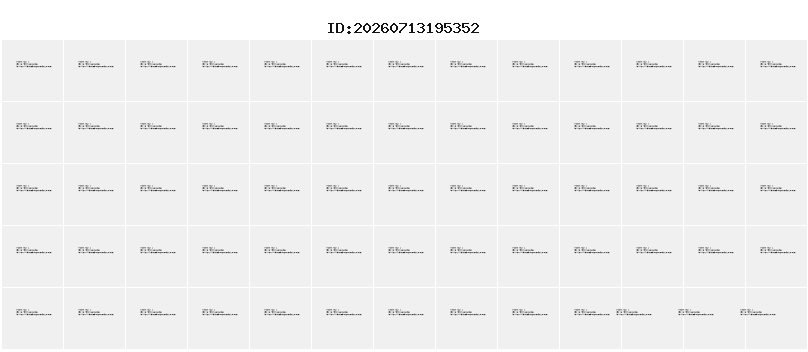
-banhart- ver : 010 Preview
• Font Name: -banhart- ver : 010
• Full Font Name: -banhart- ver : 010
• Version: 010
• Designer: Eric Wiryanata
• Manufacturer: Deathrockstar
About -banhart- ver : 010.ttf
-banhart- ver : 010.ttf is a modern, elegant sans-serif font designed for ultimate readability and visual harmony. Perfect for branding, headlines, web design, and print materials.